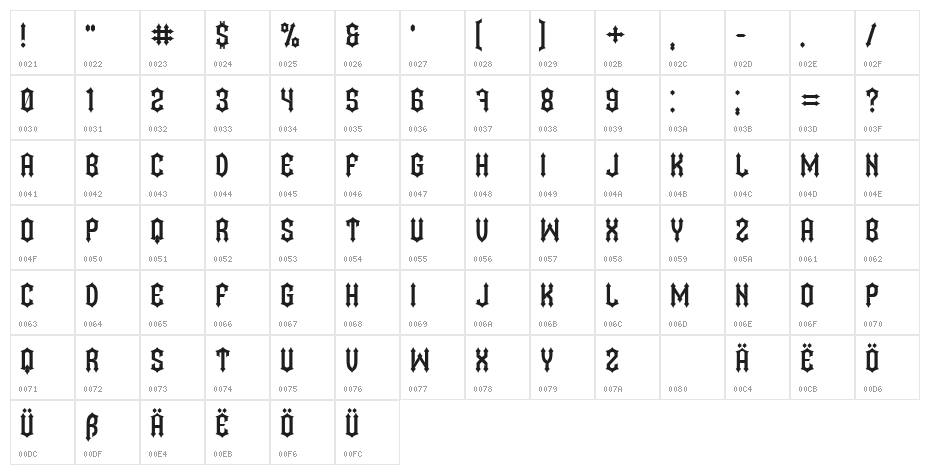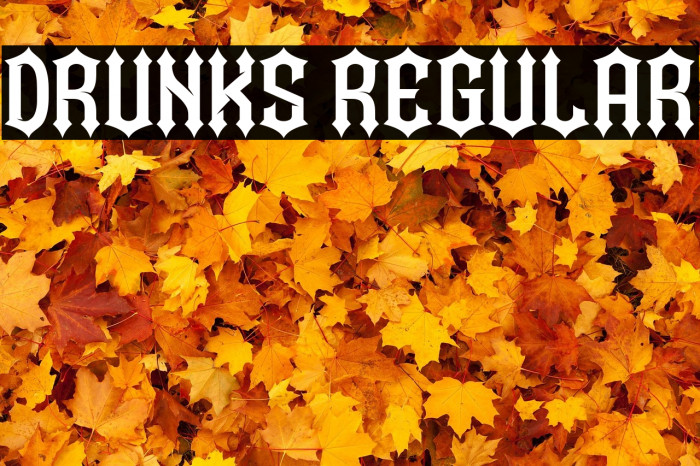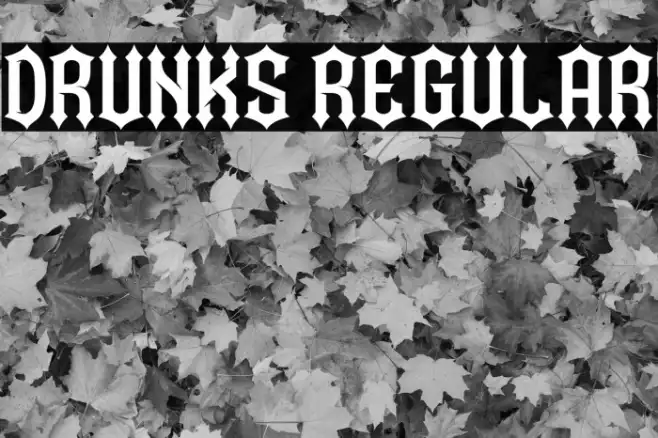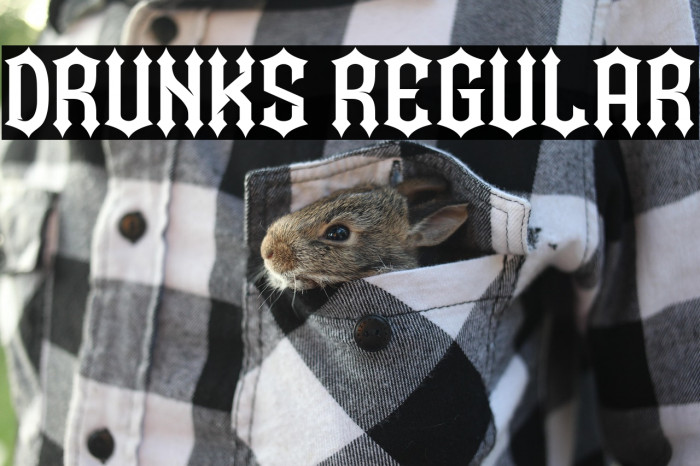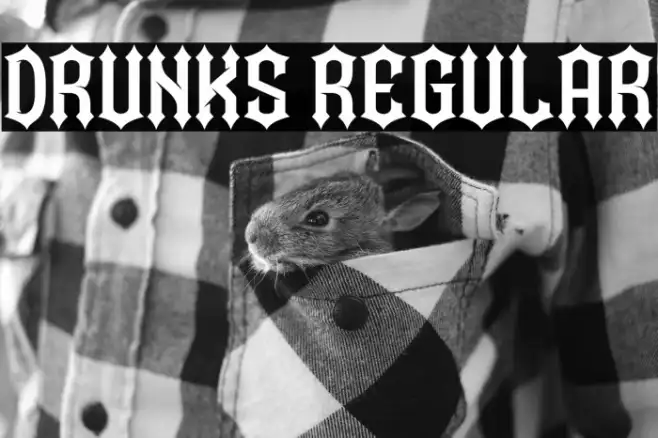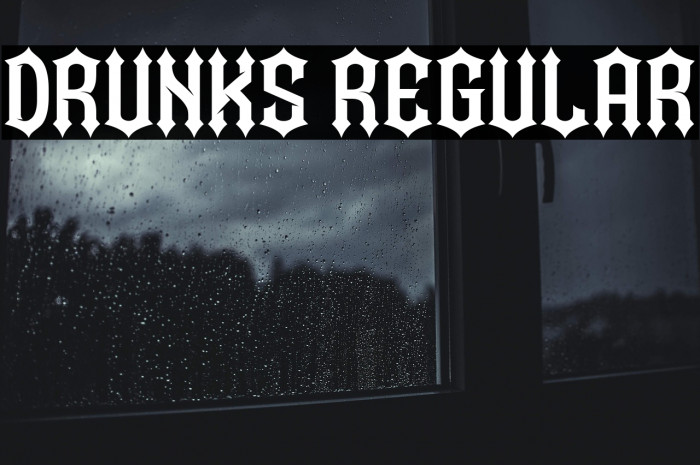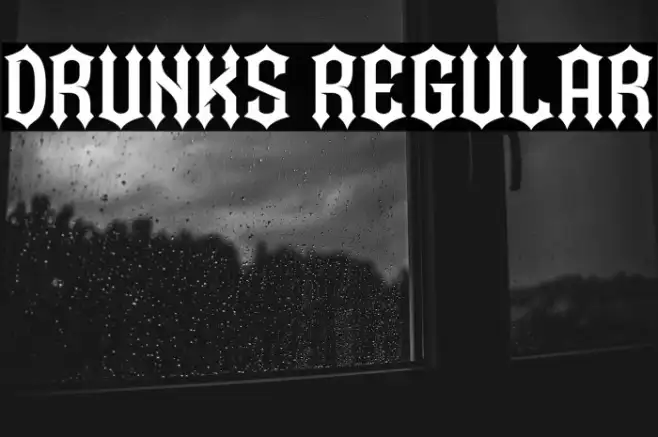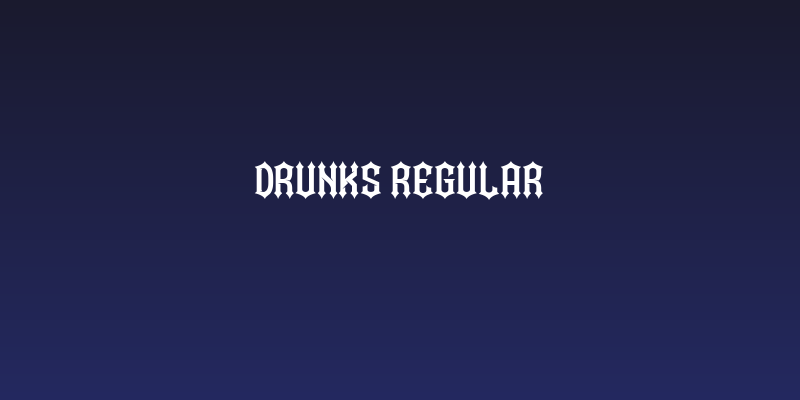
Drunks Regular Font
Drunks Regular Description
This font features a bold and striking design with sharp, angular edges and a gothic-inspired aesthetic. The characters are highly stylized, with intricate details that give them a unique and dramatic appearance. The uppercase letters are particularly prominent, with a strong presence that commands attention. The numbers and special characters maintain the same level of detail and complexity, ensuring consistency throughout the font. This style is reminiscent of traditional blackletter typefaces, yet it incorporates modern elements that make it suitable for contemporary use.
| Proposed Projects | Ideal for use in branding, posters, album covers, and any project requiring a dramatic, eye-catching typeface. |